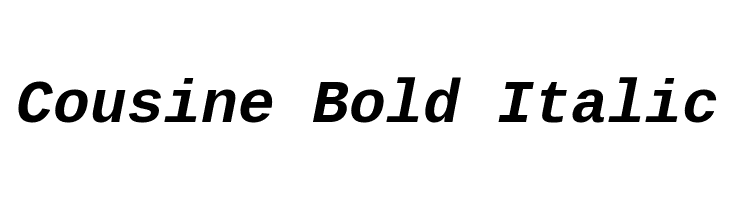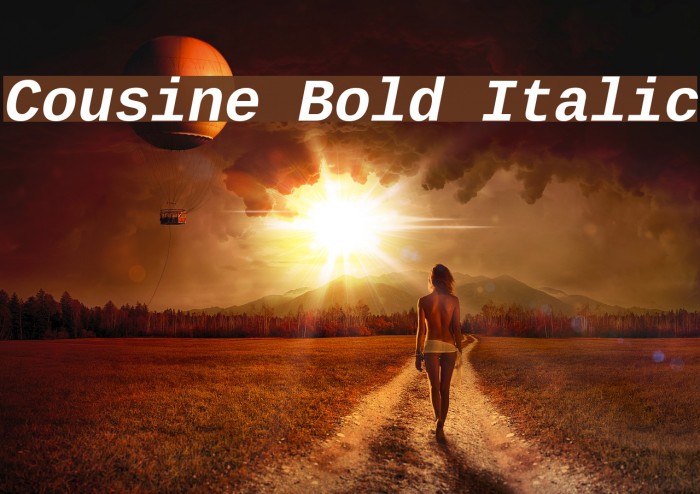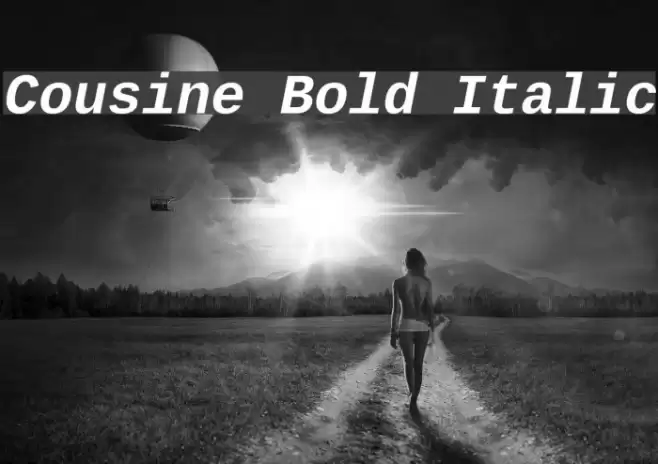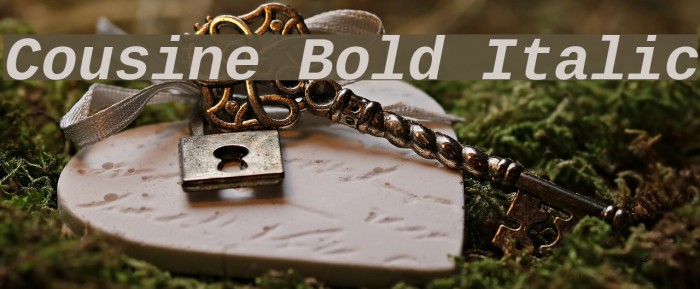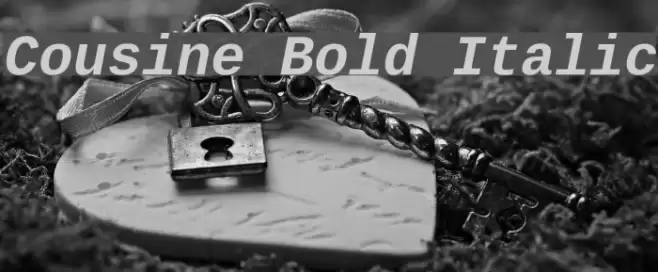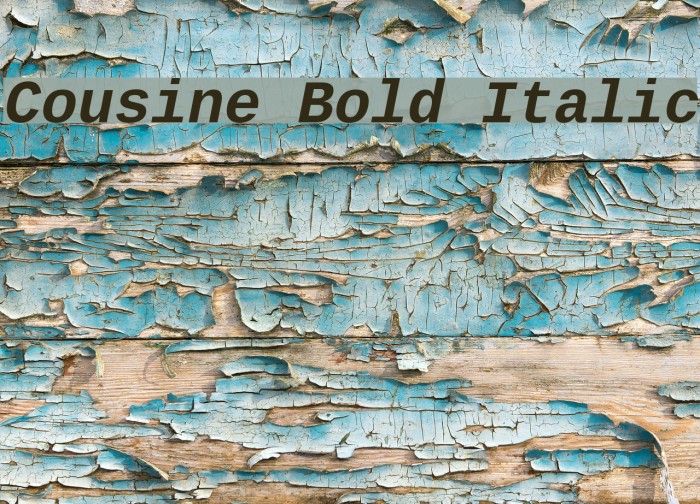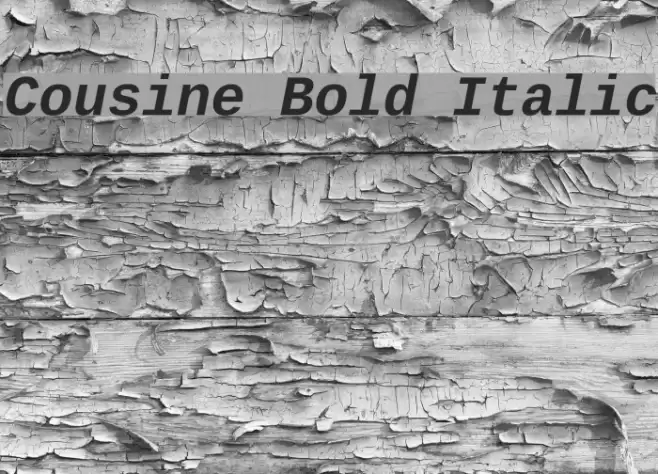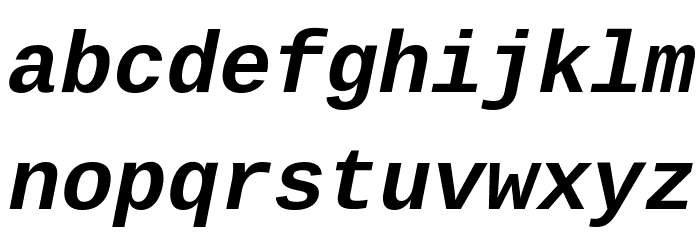
Cousine Bold Italic Font
This font exhibits a clean and modern aesthetic with a bold and italicized style, offering a strong presence on the page. The characters are well-defined with a slight slant, enhancing readability while adding a dynamic feel. The font maintains a consistent stroke width, providing a uniform appearance across all characters. It includes a full set of uppercase and lowercase letters, numerals, and a variety of special characters, making it versatile for various design needs. The spacing between characters is balanced, ensuring clarity and legibility even in smaller sizes.
A bold, italicized font with a modern and clean design.
• Proposed Projects: Ideal for use in modern web design, branding projects, and editorial layouts where a strong, contemporary look is desired.
• Category: Sans-Serif
• Bold: Yes
• Italic: Yes
• Weight: Bold
• Width: Normal
• Character Spacing: Normal
• Contrast: Low
• Overall Style: Modern
• Use Case: Headlines, Body text, Logos